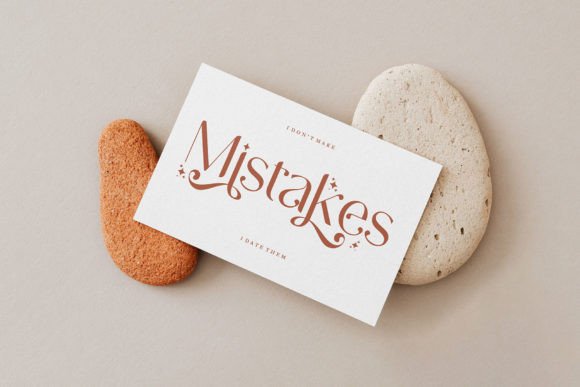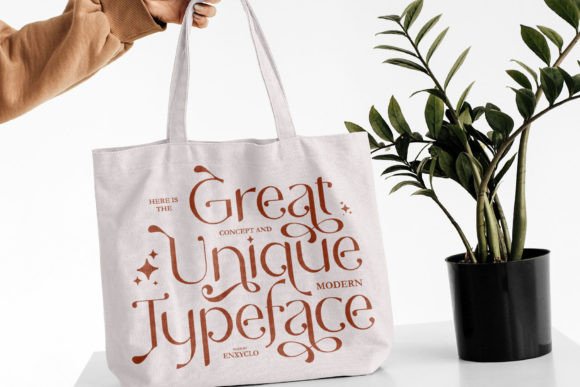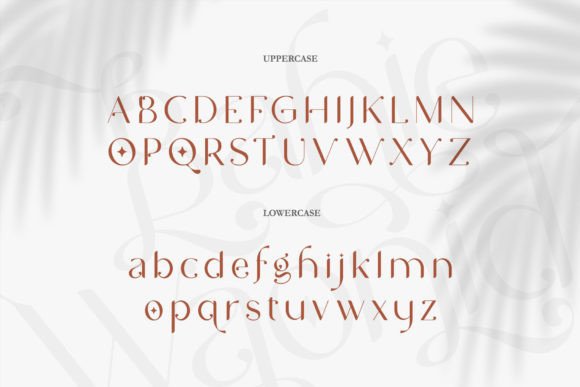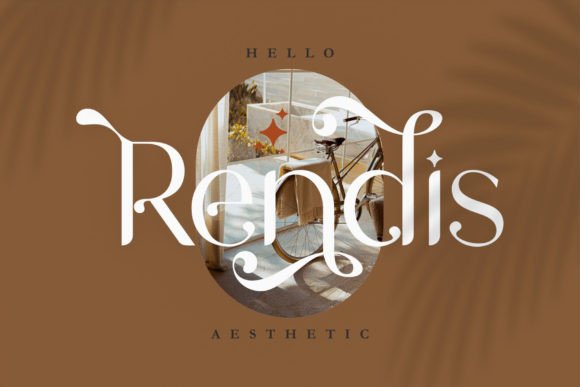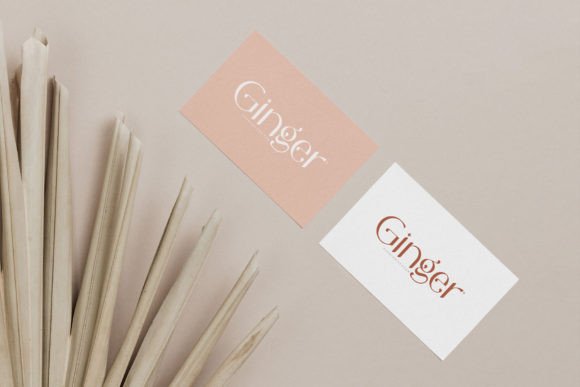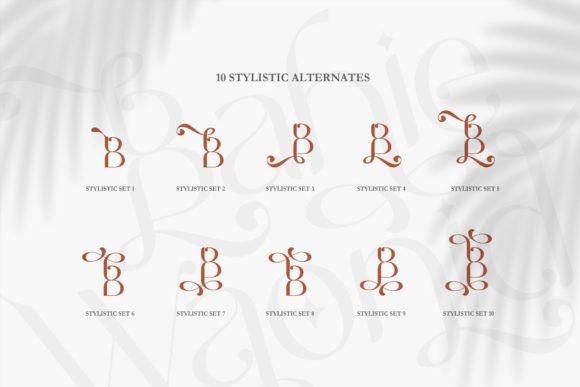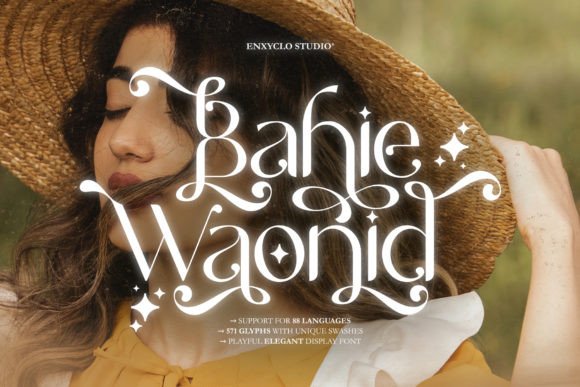
Bahie Waonid Font: Elevate Your Designs with Elegance and Sophistication
In the world of typography, a beautiful font can make all the difference in bringing your creative ideas to life. Introducing Bahie Waonid, a stunning serif font that is sure to become a favorite among designers and crafters. With its unique and elegant design, Bahie Waonid has the potential to elevate any creation, from wedding designs and romantic events to headlines, billboards, magazines, websites, titles, posters, branding, T-shirts, logos, and more.
A Masterfully Designed Font
Bahie Waonid is a meticulously crafted font that exudes elegance and sophistication. Its serif design adds a touch of classic charm, making it perfect for designs that require a sense of tradition and refinement. The font’s unique character set and swashes allow for endless creative possibilities, making it an incredible asset to your font library.
Whether you’re working on a wedding invitation, a romantic event brochure, or a headline for a magazine, Bahie Waonid is the perfect choice. Its versatility and elegance make it suitable for a wide range of design projects, including:
- Wedding designs: Create beautiful wedding invitations, save-the-date cards, and ceremony programs with Bahie Waonid’s elegant and romantic style.
- Romantic events: Add a touch of sophistication to your event branding, posters, and flyers with this stunning font.
- Headlines and billboards: Make a statement with Bahie Waonid’s bold and eye-catching design, perfect for grabbing attention and conveying your message.
- Magazines and websites: Use Bahie Waonid to add a touch of elegance to your publication’s title pages, headings, and body text.
- Titles and posters: Create stunning titles and posters for movies, plays, and concerts with Bahie Waonid’s classic and sophisticated design.
- Branding and logos: Establish your brand’s identity with Bahie Waonid’s unique and memorable style.
- T-shirts and apparel: Add a touch of personality to your designs with Bahie Waonid’s elegant and versatile font.
Bahie Waonid is PUA (Private Use Area) encoded, making it easy to access all the glyphs and swashes. This means you can effortlessly navigate the font’s character set and use it to create stunning designs without any hassle.
Why Choose Bahie Waonid?
With so many fonts available, why choose Bahie Waonid? Here are just a few reasons why this font stands out:
- Unique and elegant design: Bahie Waonid’s distinctive style sets it apart from other fonts, making it perfect for designers who want to create something special.
- Versatility: This font can be used for a wide range of design projects, from romantic events to headlines and billboards.
- PUA encoded: Easy access to glyphs and swashes makes it simple to get the most out of Bahie Waonid.
- High-quality design: Bahie Waonid is meticulously crafted to ensure that it looks great in any design.
In conclusion, Bahie Waonid is a beautiful and unique serif font that has the potential to elevate any design. Its elegant and sophisticated design makes it perfect for a wide range of projects, from wedding designs and romantic events to headlines, billboards, and more. With its PUA encoding and high-quality design, Bahie Waonid is an incredible asset to any font library. Whether you’re a designer, crafter, or simply someone who appreciates beautiful typography, Bahie Waonid is sure to become a favorite.